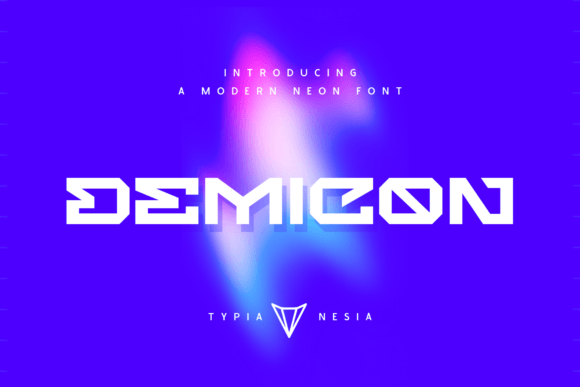
In a world where visual expression reigns supreme, Demicon Font emerges as a beacon of creativity, inviting you to unlock a realm of endless possibilities. This avant-garde sans-serif typeface, meticulously crafted by the visionary minds at Typia Nesia, transcends the boundaries of ordinary typography, propelling your designs to new heights of distinction.
Prepare to be captivated by Demicon's alluring curves and sharp angles, a symphony of visual intrigue that dances across your screen. Each character, meticulously chiseled with precision, exudes a bold and confident persona, demanding attention with its commanding presence. Unleash your imagination and watch as Demicon transforms your words into captivating headlines, captivating logos, and mesmerizing graphics, each element imbued with an energy that reverberates through the digital sphere.
Step into the realm of boundless creativity, where Demicon's versatility knows no limits. Its inherent adaptability shines in both web and print applications, effortlessly molding itself to suit your every need. Whether you seek to forge unforgettable brand identities, breathe life into packaging designs, or orchestrate captivating advertising campaigns, Demicon stands as your steadfast ally, ready to elevate your designs to unparalleled heights.
Embrace the allure of Demicon's unique ligatures and alternate characters, a treasure trove of typographic artistry that empowers you to break free from the conventional and embrace individuality. Experiment with endless combinations, weaving together letters and symbols in a harmonious tapestry that reflects your distinctive style. Let your creativity soar as you craft personalized messages that resonate with your audience, leaving an indelible mark on their minds.
Demicon beckons you to embark on a journey of typographic exploration, where boldness and innovation collide. With its expanded style and modern design, this font commands attention, captivating your audience with its undeniable charm. Dare to be different, to defy expectations, and to leave an enduring legacy through the power of Demicon.